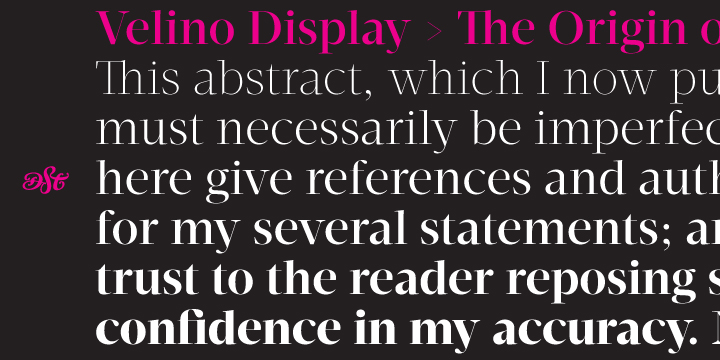
The Velino Display Font is excellent for high-impact design projects including fashion magazine headlines, luxury brand advertising, premium product launches, elegant poster designs, sophisticated editorial layouts, upscale retail signage, contemporary art exhibitions, and refined marketing campaigns. This striking display typeface brings dramatic visual presence and sophisticated elegance to any design project requiring bold statement typography with refined appeal.
What makes Velino Display Font so exciting is its masterful combination of dramatic impact with refined sophistication that creates powerful visual hierarchy while maintaining elegant readability at large sizes. The letters feature distinctive proportions with carefully crafted details that command attention while communicating luxury and contemporary style. This distinctive display character makes it perfect for brands and projects that want to communicate premium quality, visual sophistication, and the compelling appeal of high-end design excellence.
The Velino Display Font family typically includes multiple weights from light to black, complete with sophisticated italic variations and extended character sets. Many versions feature stylistic alternates, luxury-inspired ligatures, and display-optimized spacing that enhance its effectiveness for headline and large-format applications.
Whether you're designing for luxury brands, fashion publications, or premium marketing campaigns, Velino Display Font Free Download provides the perfect solution for projects that need to create powerful visual impact with sophisticated appeal. This font transforms headline text into compelling designs that immediately communicate luxury, contemporary elegance, and professional design excellence to audiences seeking premium visual experiences and refined aesthetic quality.